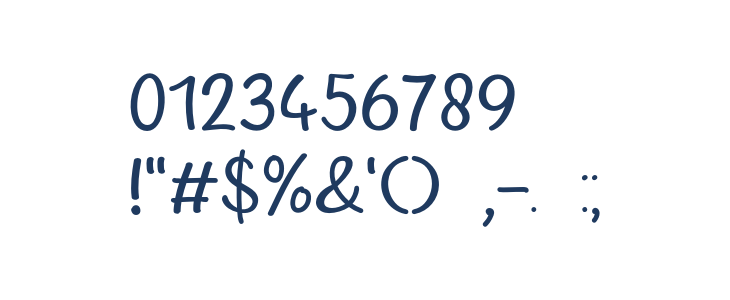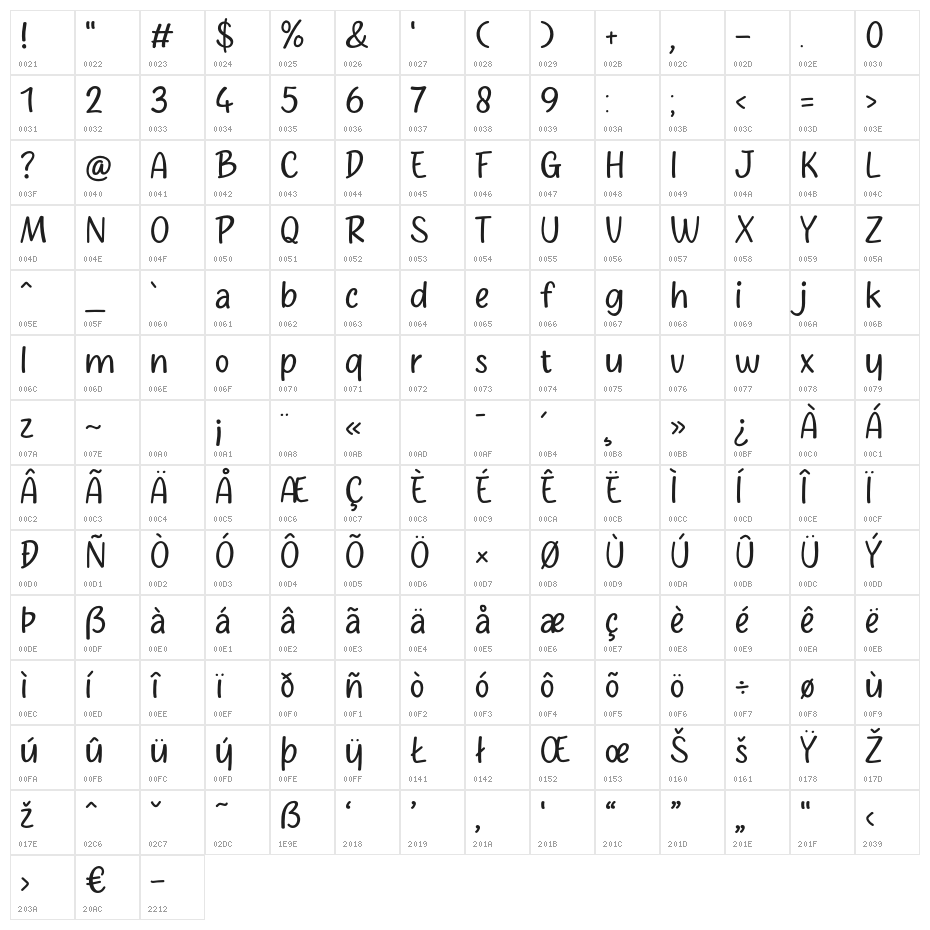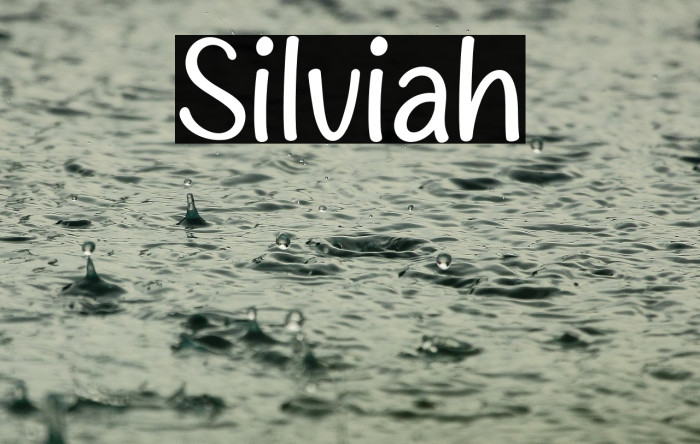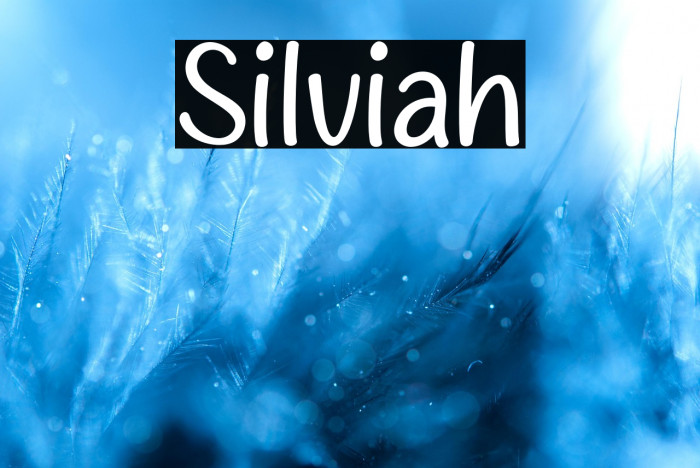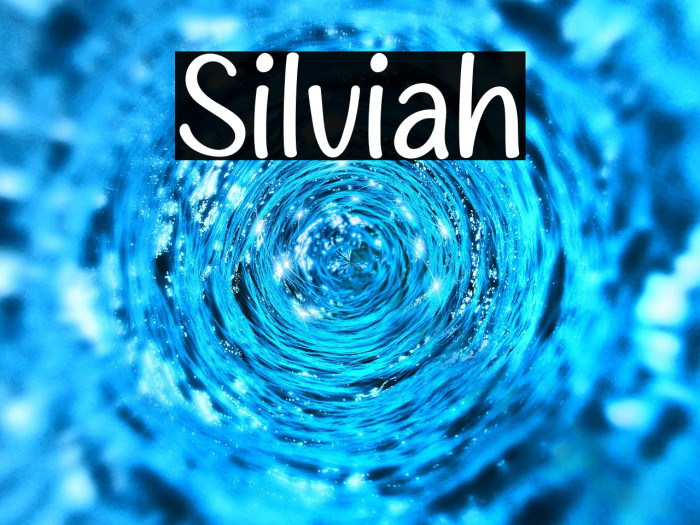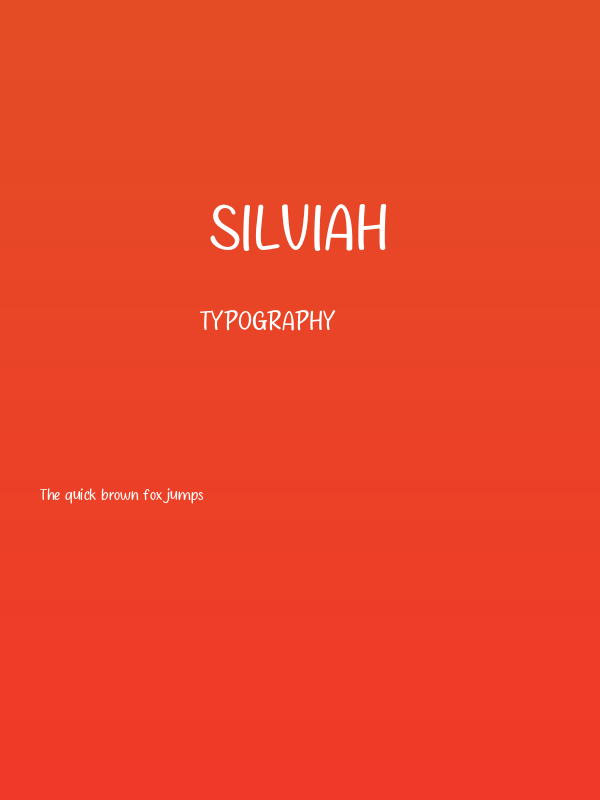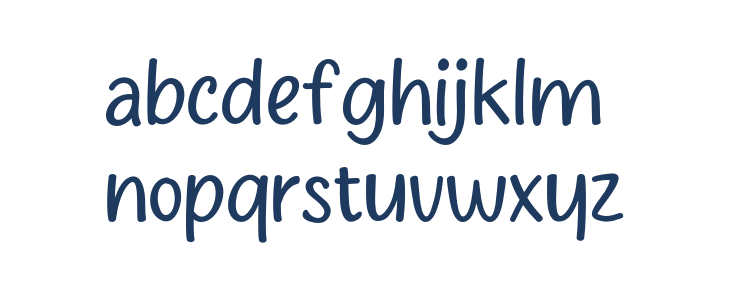
Silviah Font
Silviah Description
This font features a playful and casual handwritten style, characterized by its smooth, rounded edges and consistent stroke width. The letters are slightly slanted, giving it a dynamic and informal appearance. The uppercase and lowercase letters maintain a harmonious balance, with a friendly and approachable aesthetic. The numerals and special characters are crafted with the same attention to detail, ensuring readability and visual appeal. This font is versatile, suitable for a variety of design projects that require a personal and warm touch.
| Use Case | Logos, Headlines, Informal text |
| Proposed Projects | Ideal for greeting cards, children's books, casual branding, and social media graphics. |